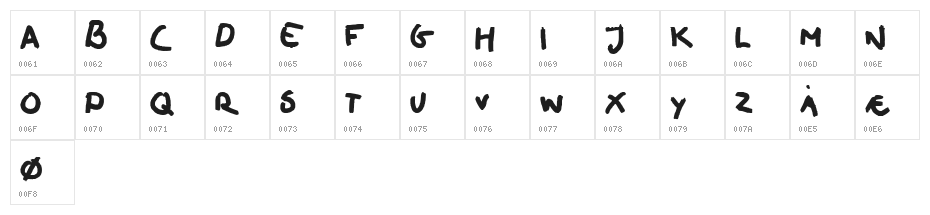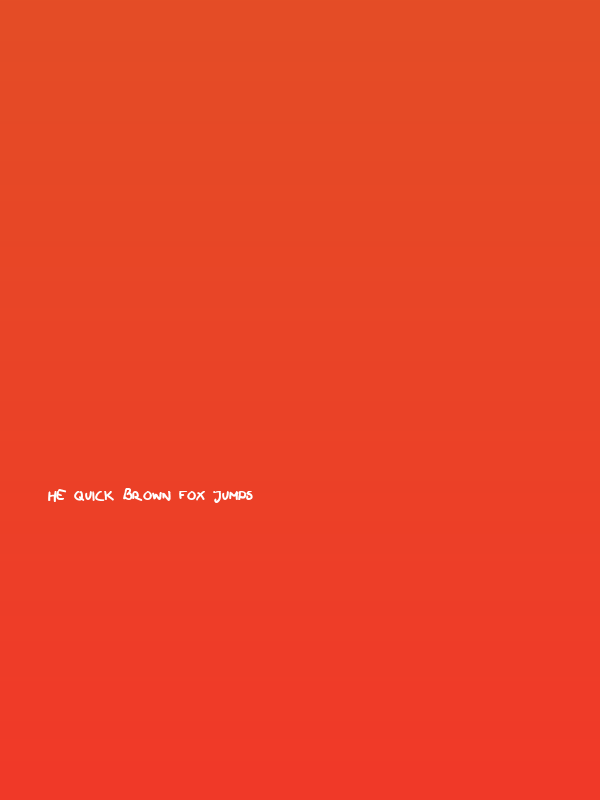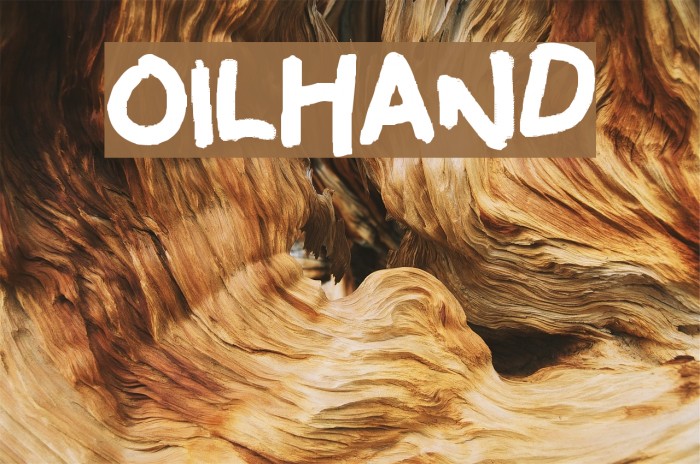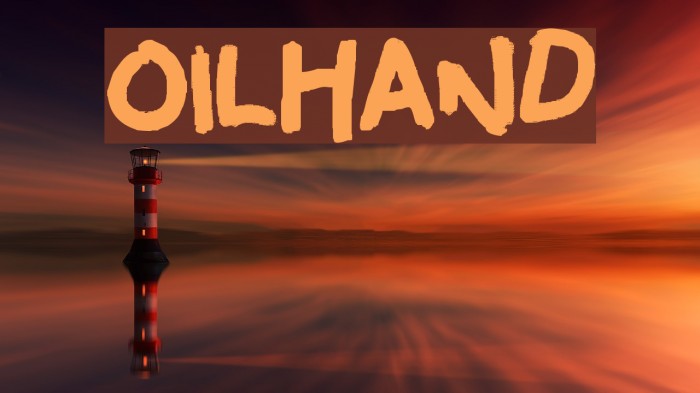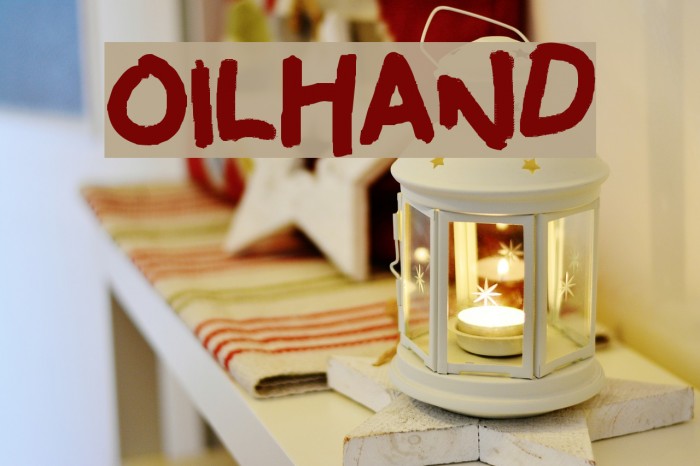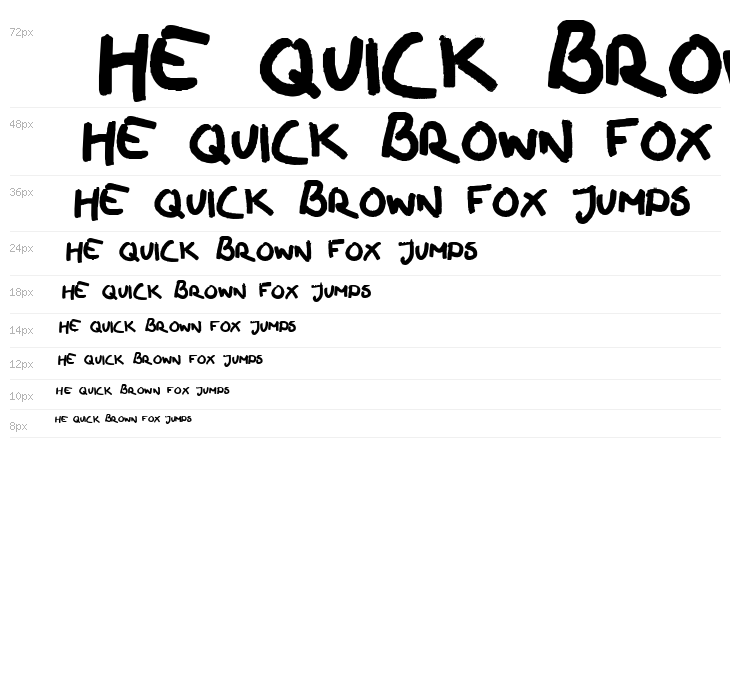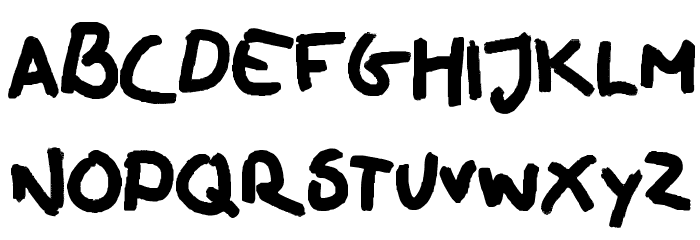
oilhand Font
oilhand Description
This font features a bold, hand-drawn style with a playful and informal appearance. The characters are slightly irregular, giving it a natural, organic feel. The strokes are thick and consistent, creating a strong visual impact. The uppercase letters are prominent and well-defined, while the lowercase letters maintain a similar style, ensuring readability. The font's casual and friendly nature makes it suitable for creative projects that require a personal touch. Its unique character shapes and bold presence make it stand out, making it ideal for attention-grabbing designs.
| Proposed Projects | Ideal for posters, greeting cards, children's books, and creative branding projects. |